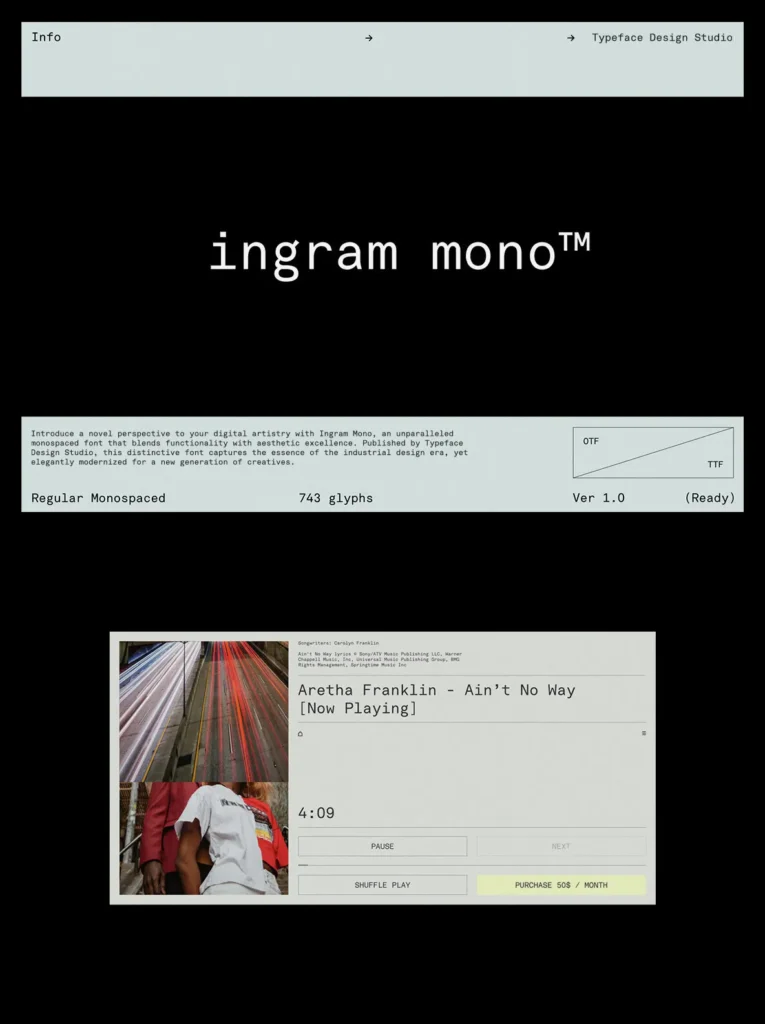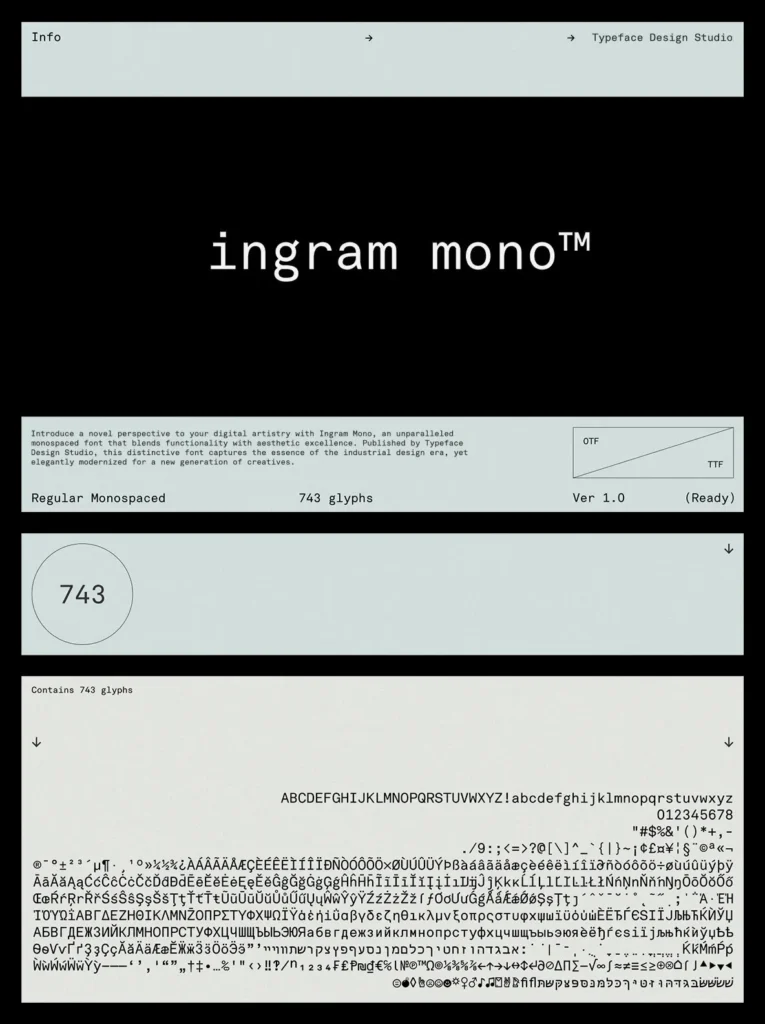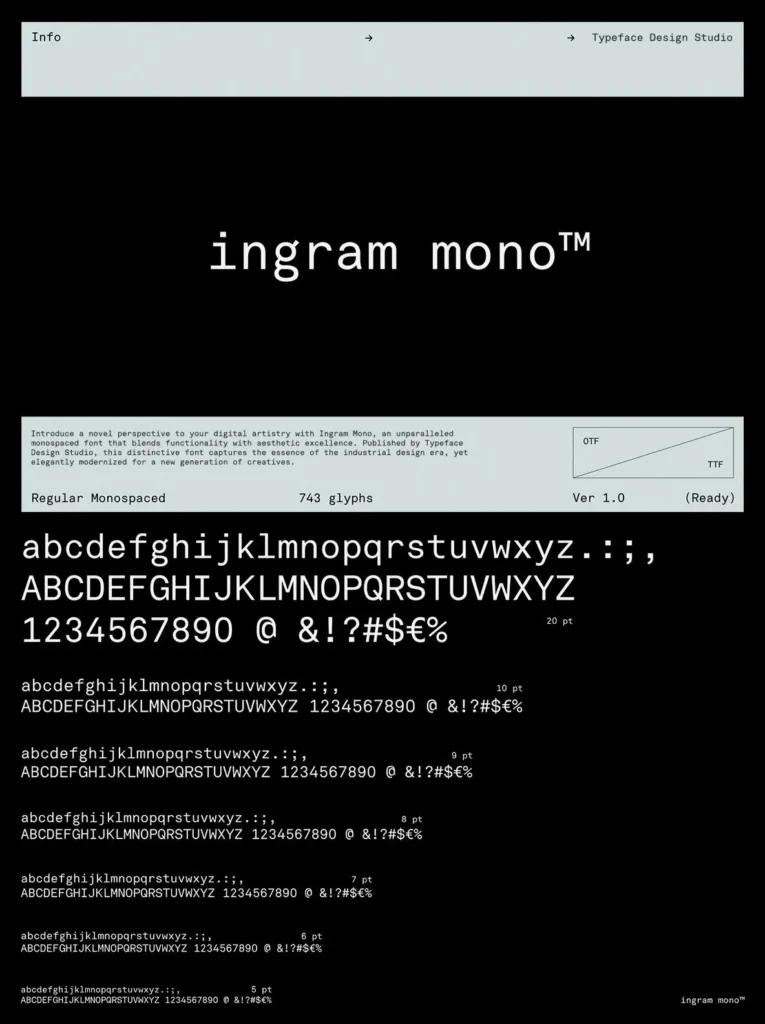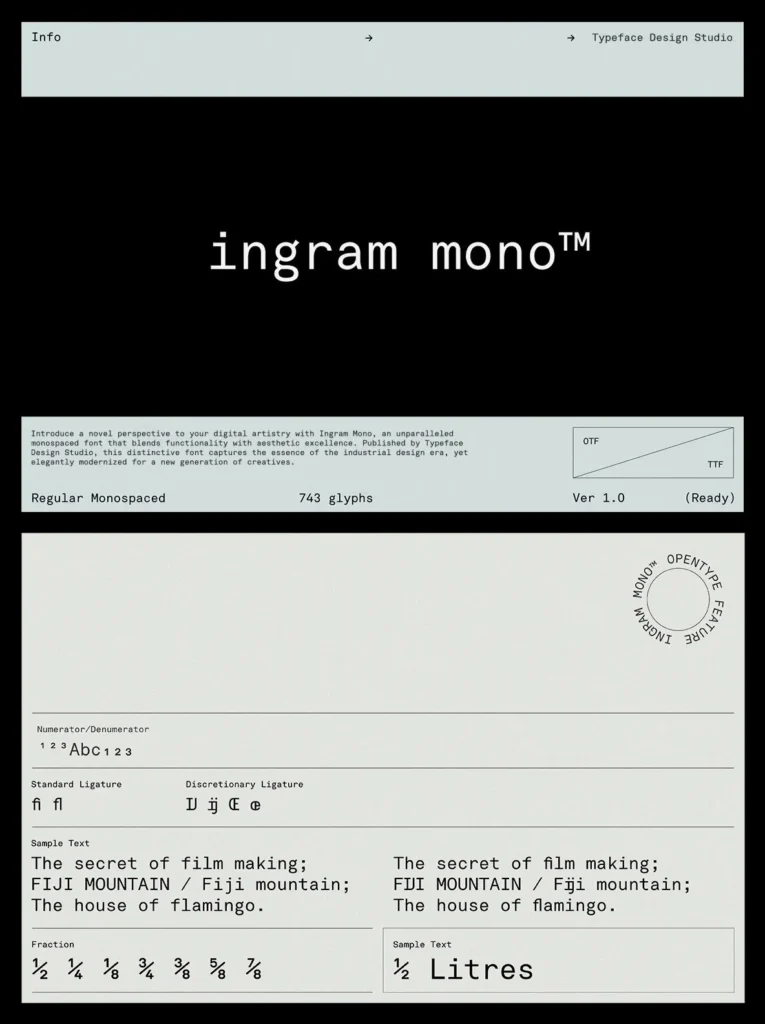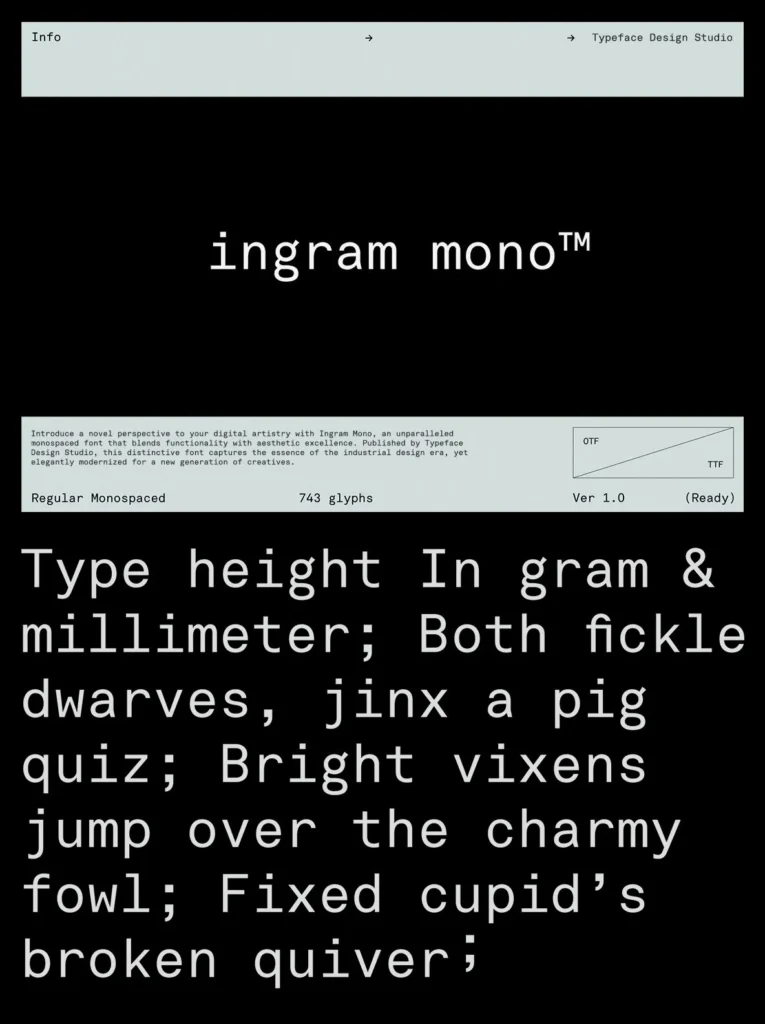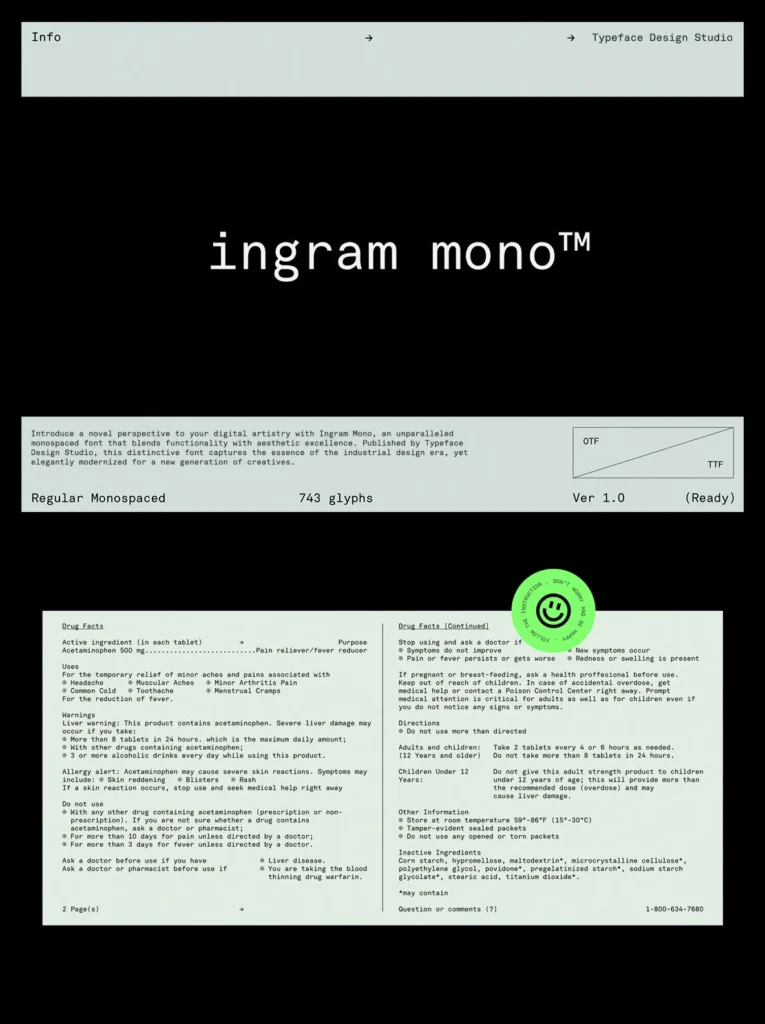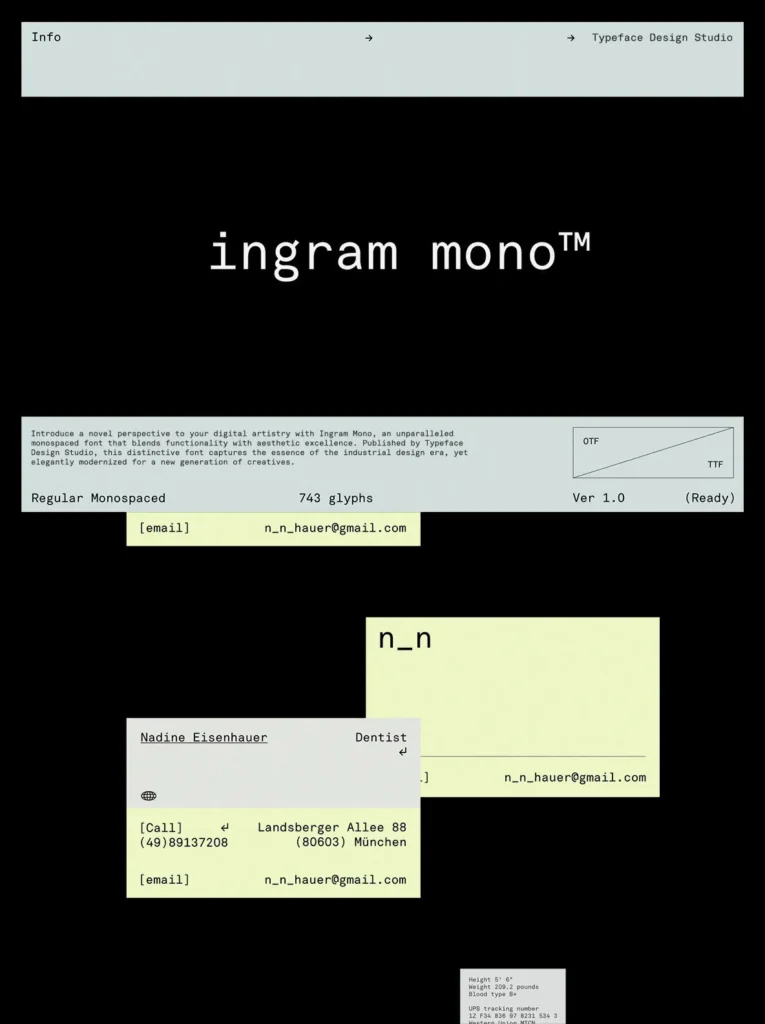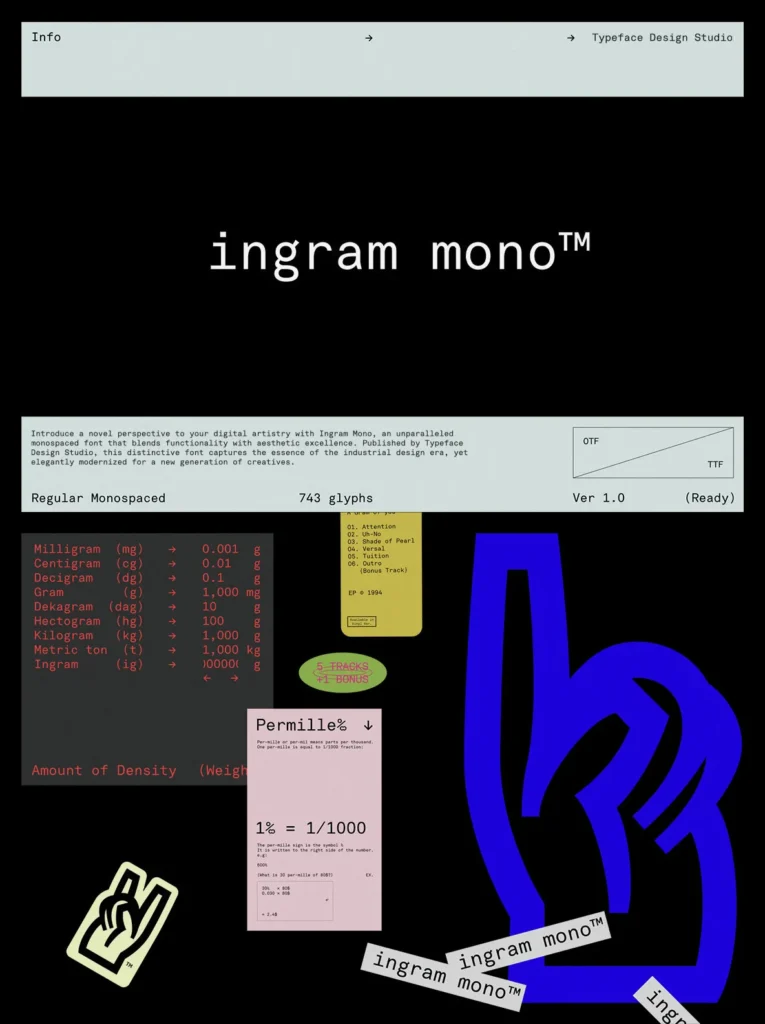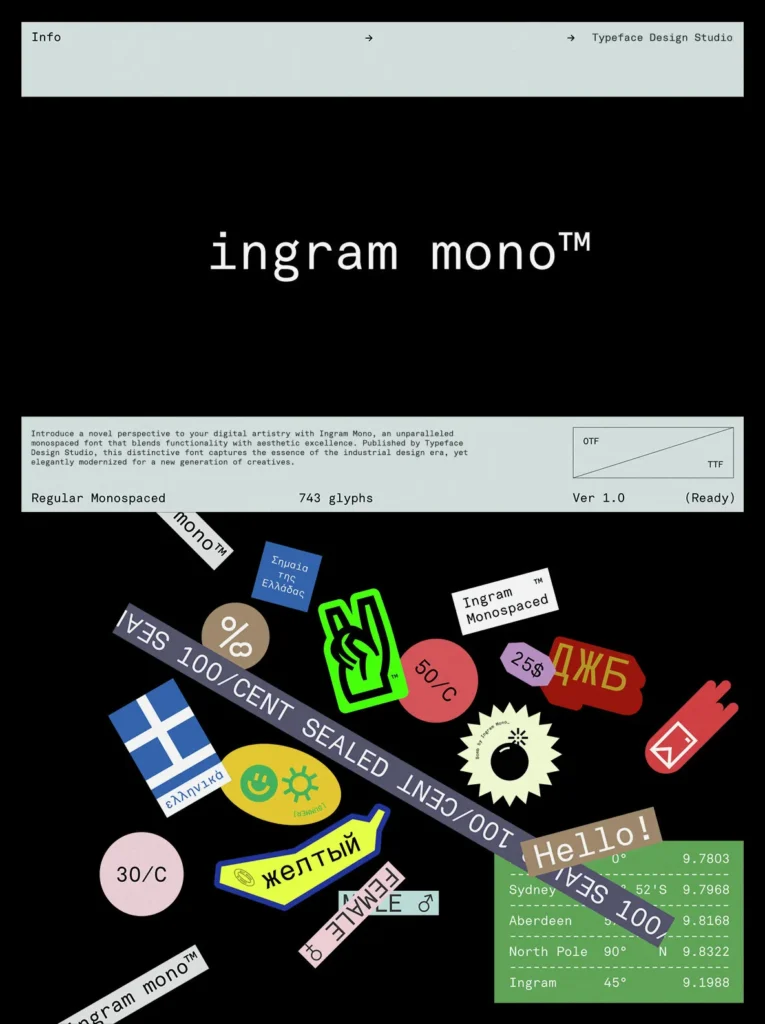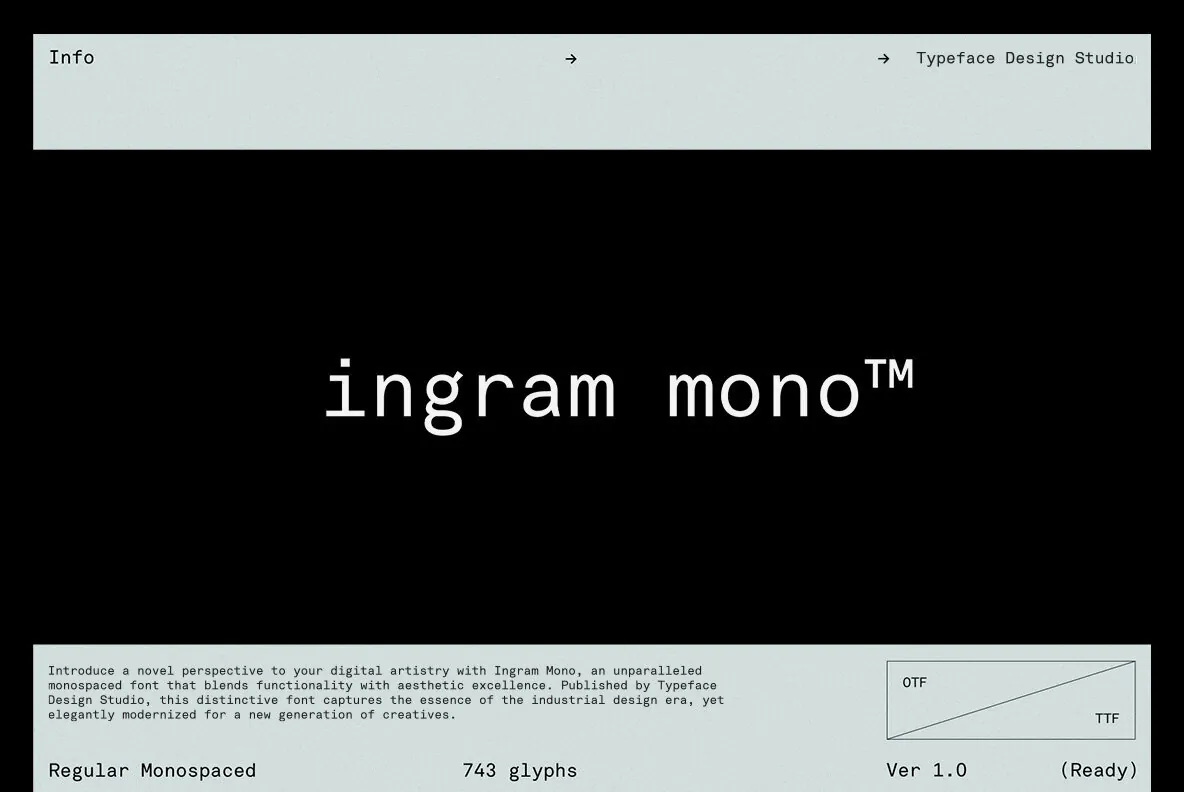
Ingram Mono — Industrial Clarity, Modern Pace
Introduce a novel perspective to your digital artistry with Ingram Mono, an unparalleled monospaced font that blends functionality with aesthetic excellence. Published by Typeface Design Studio, this distinctive font captures the essence of the industrial design era, yet elegantly modernized for a new generation of creatives.
Each stroke of Ingram Mono is meticulously deliberated and executed, demonstrating an in-depth understanding of the fundamental principles of sans serif glyphs structure. This ensures a seamless fusion of design elements, striking the perfect equilibrium between balance and optimization. Multilingual support further elevates the font’s versatility, making it an indispensable tool for international marketing campaigns and localized advertisements.
Ingram Mono Features:
Monospaced Font: Provides a uniform look, enhancing readability and visual appeal.
Industrial Design Inspiration: Adds an edgy, contemporary appeal to your designs.
Balance and Optimization: Built on the principles of sans serif glyphs structure for superior aesthetics and utility.
Multi-language Support: Ready for global use; ensures your message is universally understood.